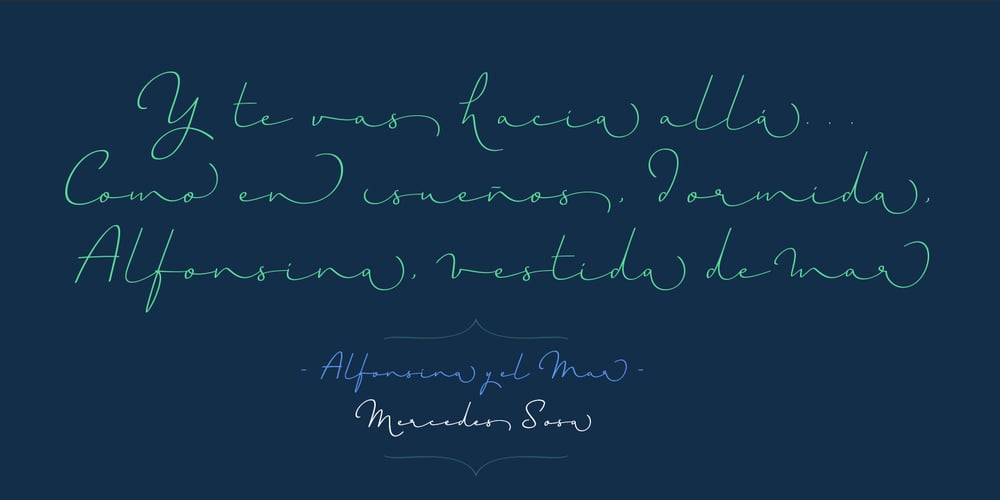
Horizontes Script Font Family was designed by Alejandro Paul, Panco Sassano and published by Sudtipos. Horizontes Script contains 2 styles and family package options. Horizontes Script is the result of Panco’s personal experimental calligraphy project. Designed with the goal of finding a balance between spontaneity, elegance and beauty, his first typography was born and inspired on the horizon´s blue line from the city he was born. Relaxed, energic and very natural. With different alternatives of proportion, a wide range of ligatures, initial letters, terminals, floritures, Horizontes Script comes in two weight for large and small formats. “Horizontes Script” results in an ideal font for titles and short texts that find something else to show more than just words. A casual and harmonious font with strong personality. Great for projects that need to connote class and style without being too formal. Ideal for design that need to transmit warmth and humanity feel to be applied on invitations, labels, poetry, songs or thoughts. Created by Panco Sassano, under the supervision of the experienced typographer Ale Paul – in a duo work – “Horizontes Script” is the latest typeface by Sudtipos.